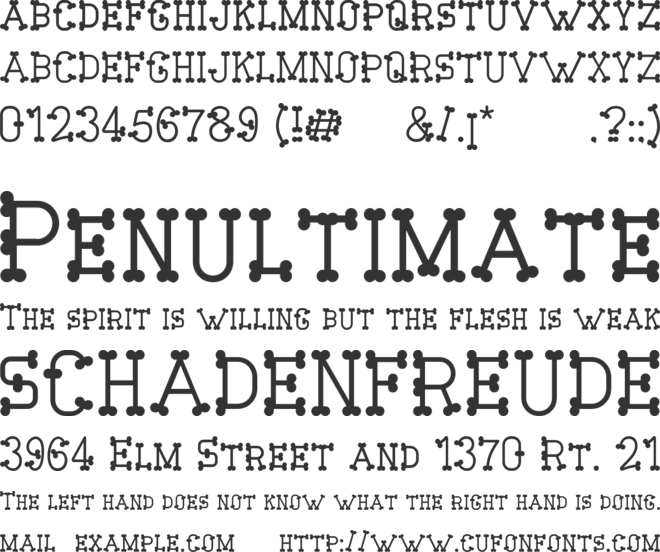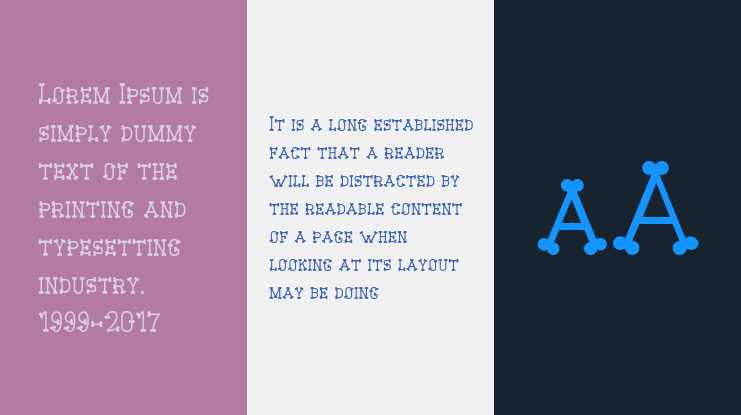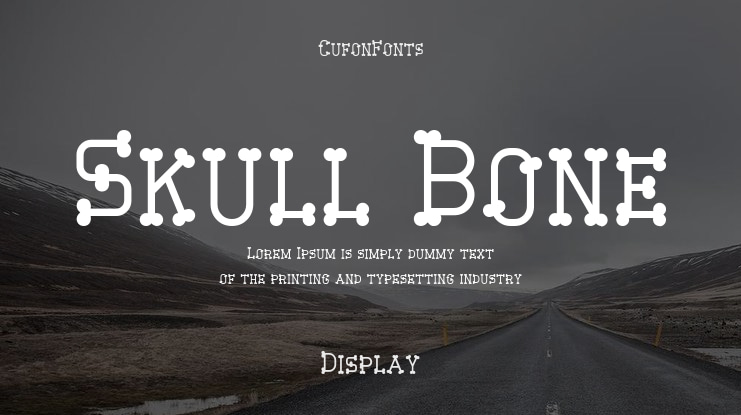
Skull Bone Font
Skull Bone is a display font built from bone-shaped strokes with jointed, rounded ends that mimic the structure of skeletal remains. Its bold, eerie letterforms capture a raw, macabre energy, making it perfect for Halloween décor, horror branding, tattoo studio logos, metal band merch, and spooky signage. The skeletal characters bring a chilling, undead presence to every design.